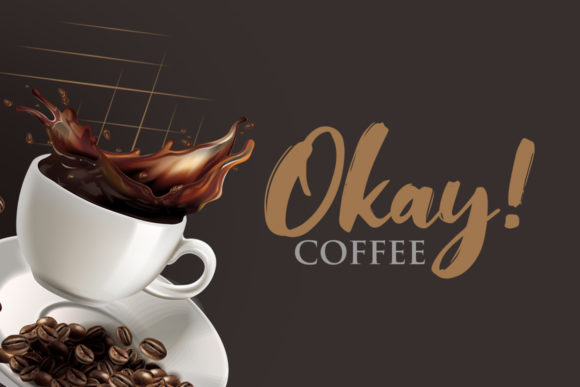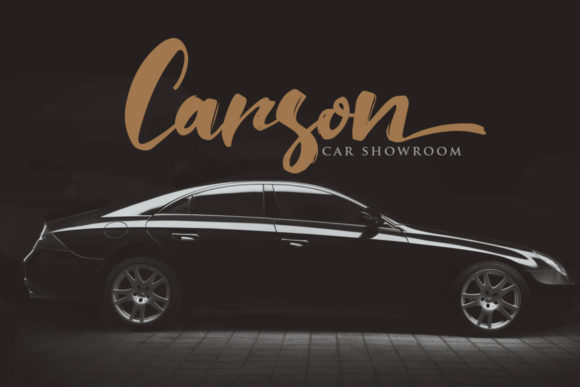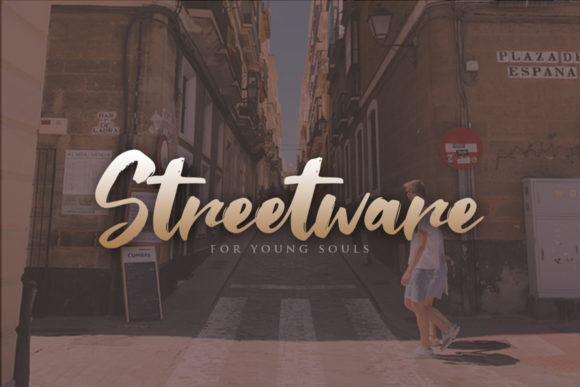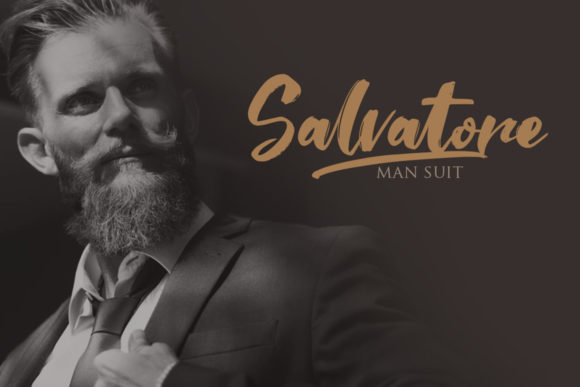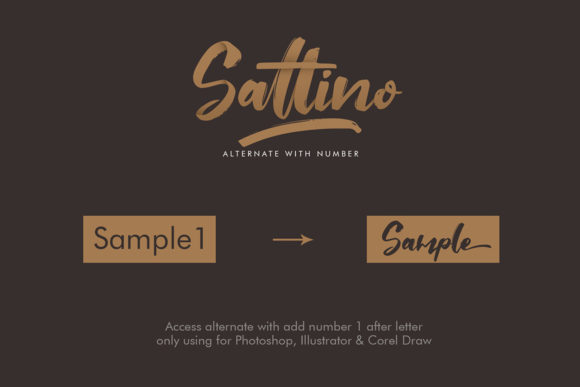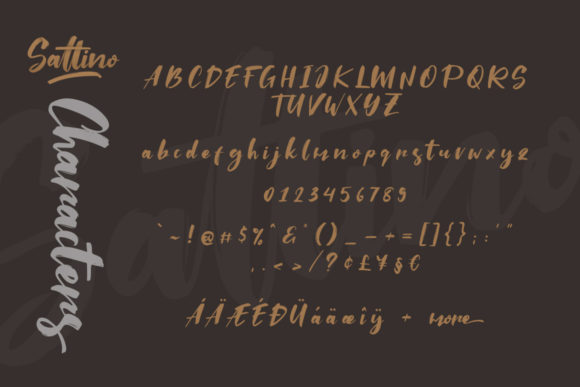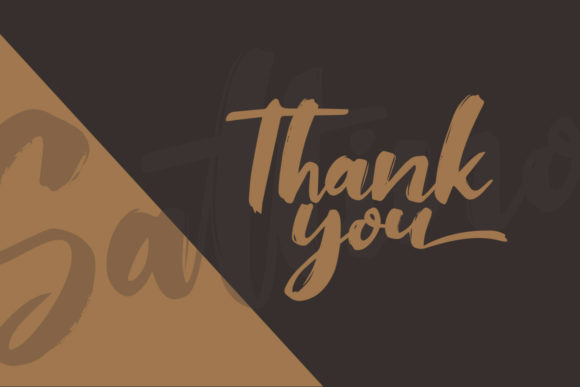
Saltino Script Font
The Saltino is a gorgeous script font. It’s ideal for projects that need a touch of casual elegance.
It is a great way to give your branding an authentic vibe, and works well as logotype and in editorials.